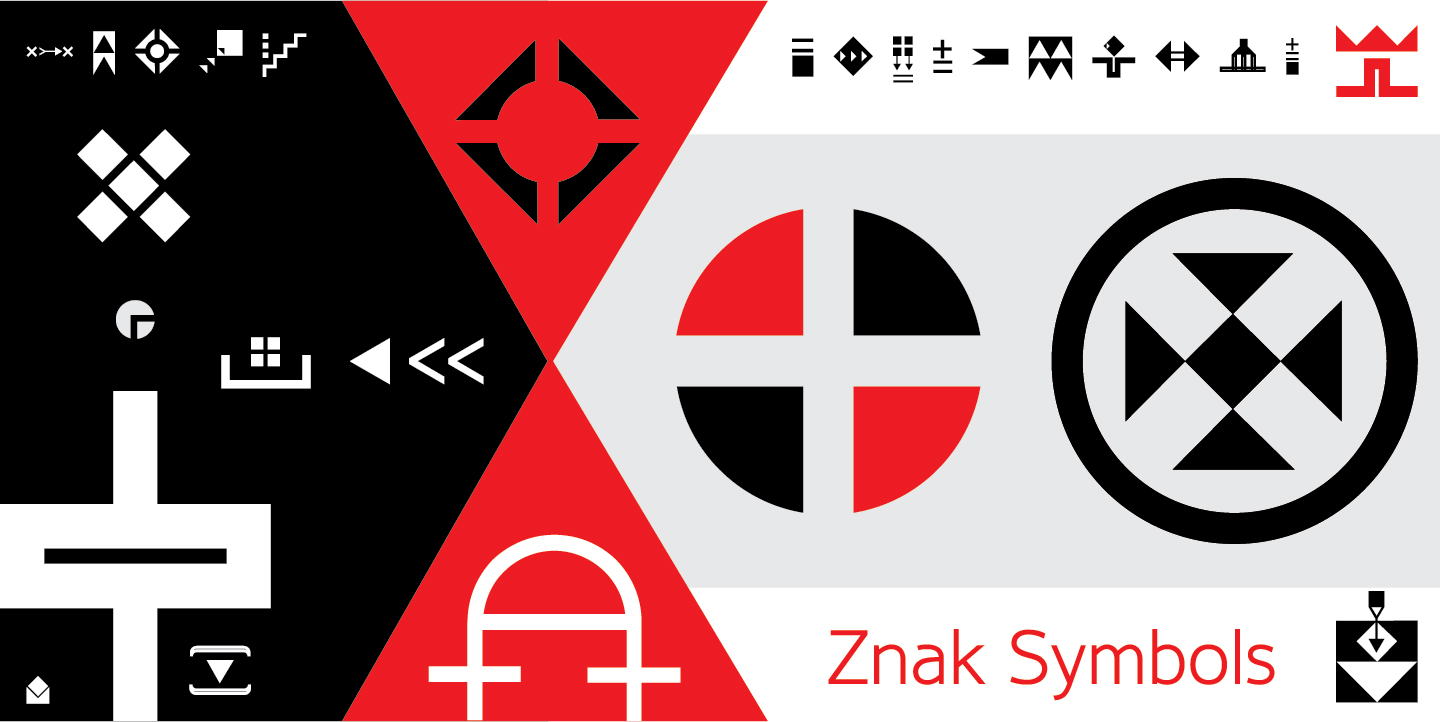
The Znak Symbols family includes 2 fonts (Znak Symbols 1 and Znak Symbols 2) each with set of 94 strictly geometric symbols. The original concept and highly applied graphics from Znak Symbols recommend it for miscellaneous purposes, from ornamental and vignette use to visual communications.